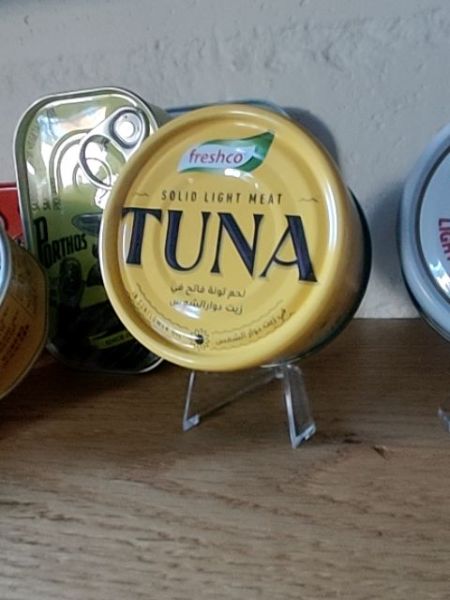
freshco Solid Light Meat Tuna
This product is canned solid light meat tuna, a type of fish commonly used in salads, sandwiches, and various recipes for its rich protein content.
The typography on the packaging features a bold, serif typeface for the word 'TUNA,' emphasizing the product name and ensuring visibility. The font used in 'freshco' utilizes a modern sans-serif style, projecting a fresh and contemporary look. The combination of serif and sans-serif fonts creates contrast and highlights key information.
The packaging is a round metal can with a pull-tab lid, featuring a vibrant yellow color that draws attention. It includes both English and Arabic text, making it accessible to a diverse audience.